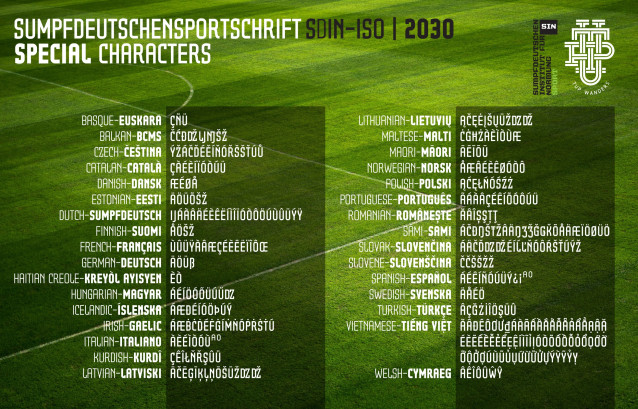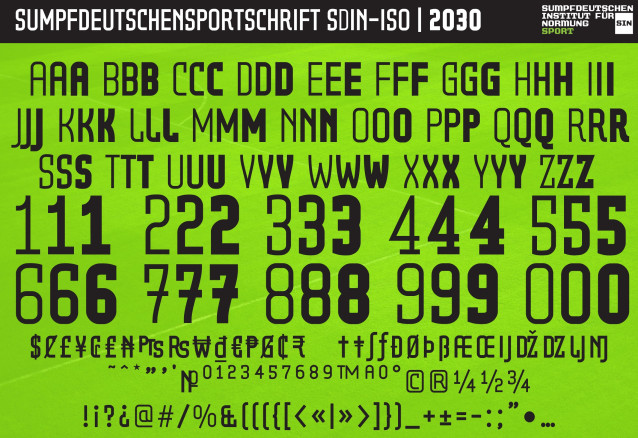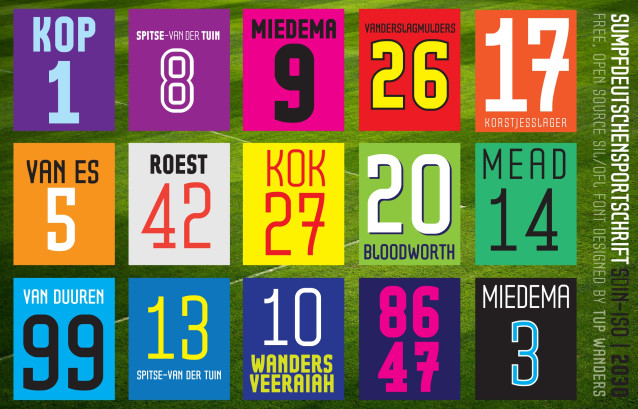
Sumpfdeutschensportschrift SdIN Font a bold statement with our latest sans-serif font. With its clean lines and modern appeal, this font is sure to turn heads and leave a lasting impression. Perfect for headlines, logos, and any design that demands attention. It is both functional and stylish, making it a versatile choice for a wide range of design projects.
Sumpfdeutschensportschrift SdIN Font
| Designer Name: | Tup Wanders |
| Classification: | Modern Fonts, Sans Serif Fonts |